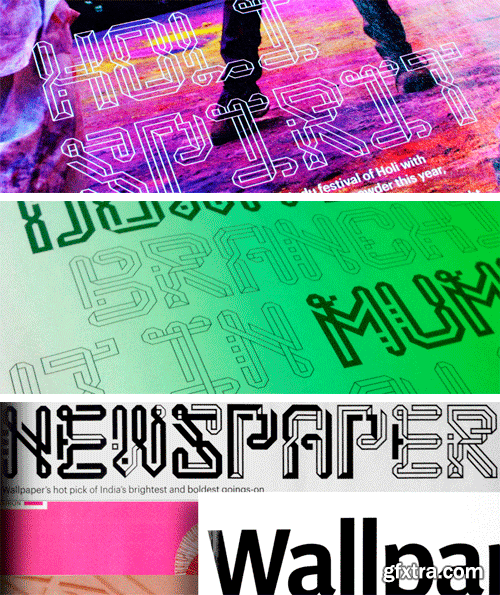
A2 India Font Family
‘India’ is an inventive display font commissioned by Wallpaper* Magazine for their ‘Reborn in India’ issue. The typeface is inspired by traditional Indian floor drawings and pattern art known as Kolam.